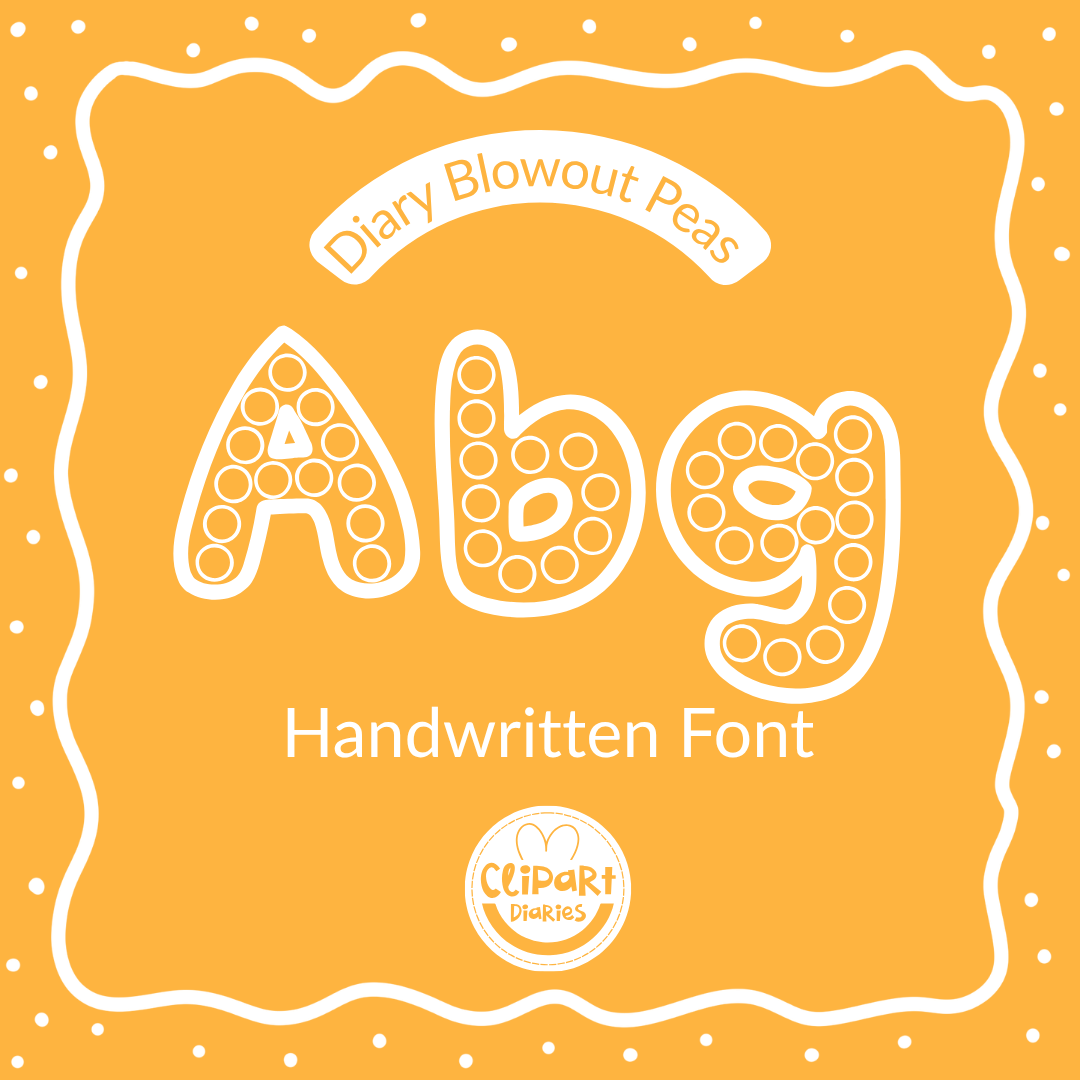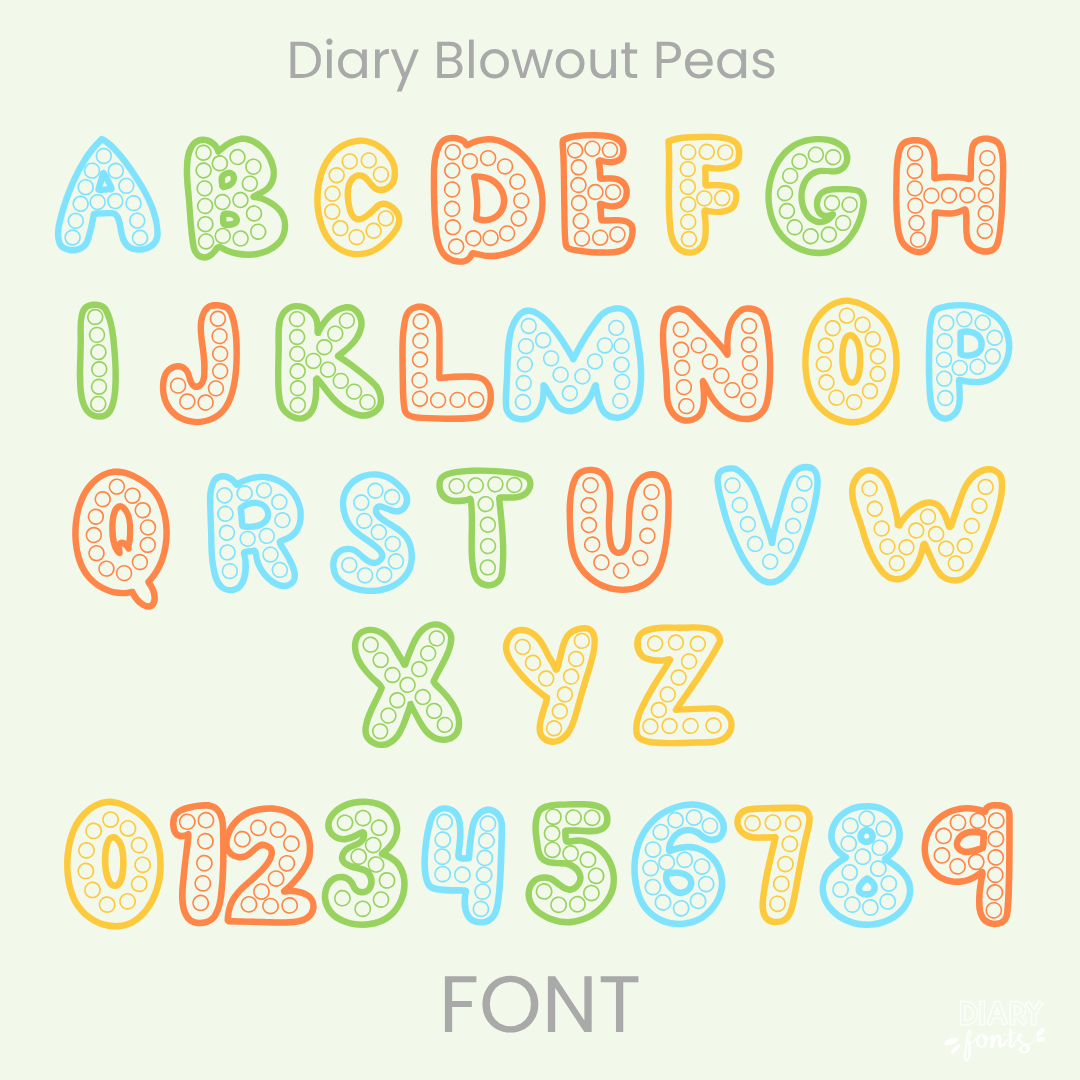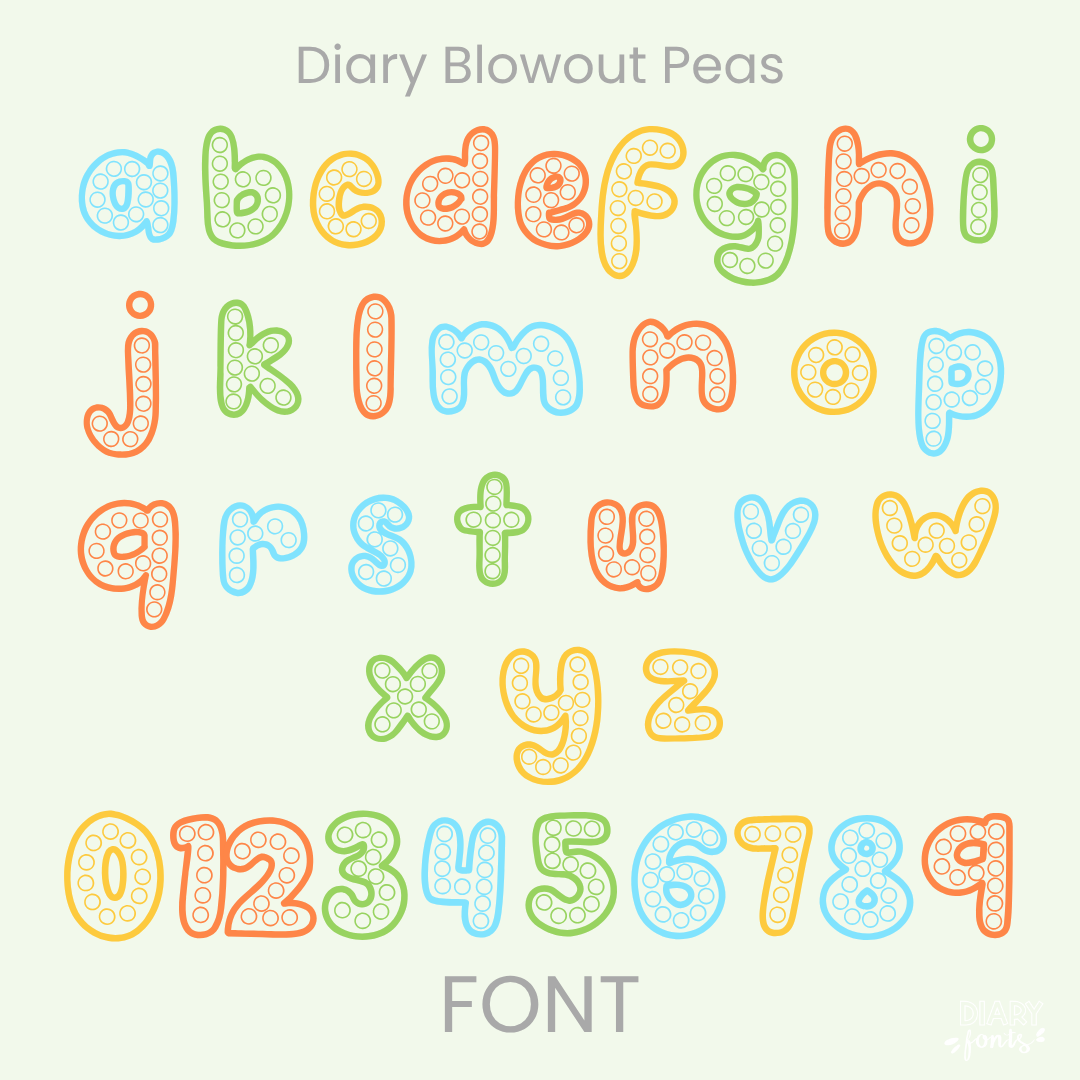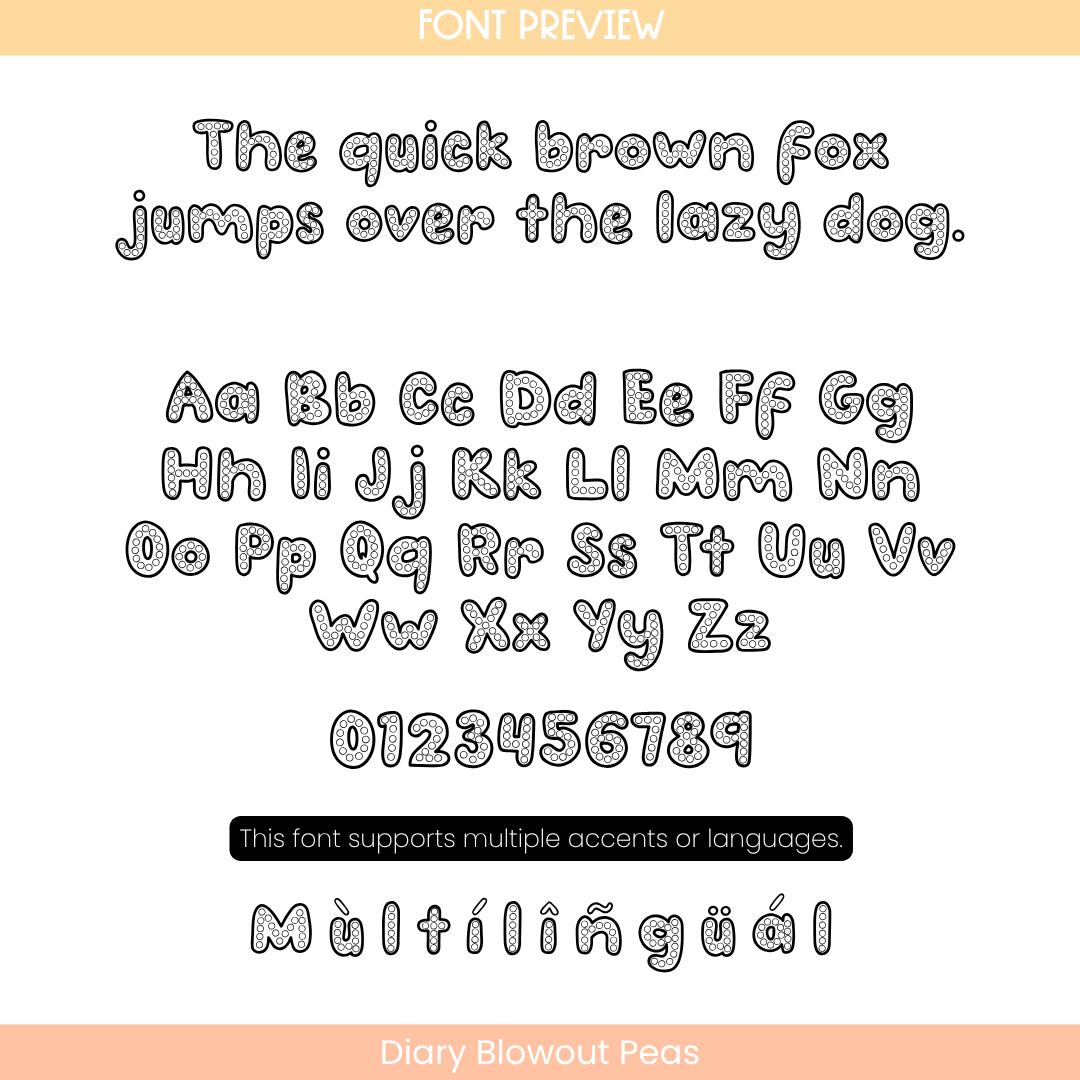
The Diary Blowout Peas is a charming, rounded handwritten font designed to add a soft and friendly touch to your digital resources and classroom materials.
Bring a gentle, hand-crafted feel to your designs with Diary Blowout Peas, a delightful handwritten font that combines smooth, rounded letterforms with professional legibility. This versatile typeface includes a complete set of uppercase and lowercase letters, numbers 0–9, and full multi-language support for various accents, making it a perfect choice for global educational content. It is specifically optimized for seamless compatibility with Canva, MS Office, and Adobe Apps, as well as popular iPad tools like GoodNotes and Procreate. Whether you are designing cute classroom decor, engaging worksheets, or personalized digital planners, Diary Blowout Peas offers a polished, organic look that is ideal for both personal and commercial use.